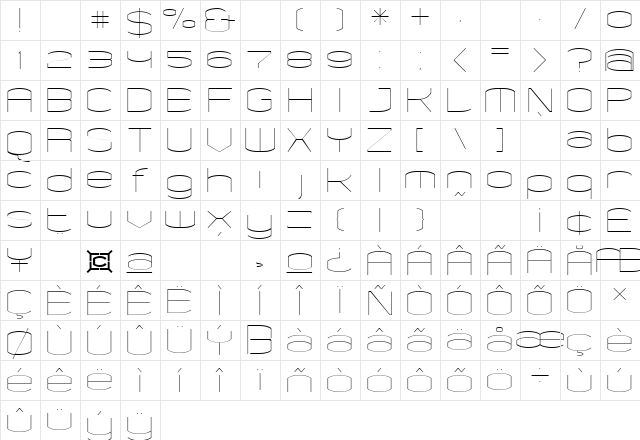
Chord Fine Font Preview
Chord Fine
Design Context for Chord Typeface
Chord takes a measured approach to typography — its balanced proportions and neutral character make it a reliable workhorse for both digital and print work.